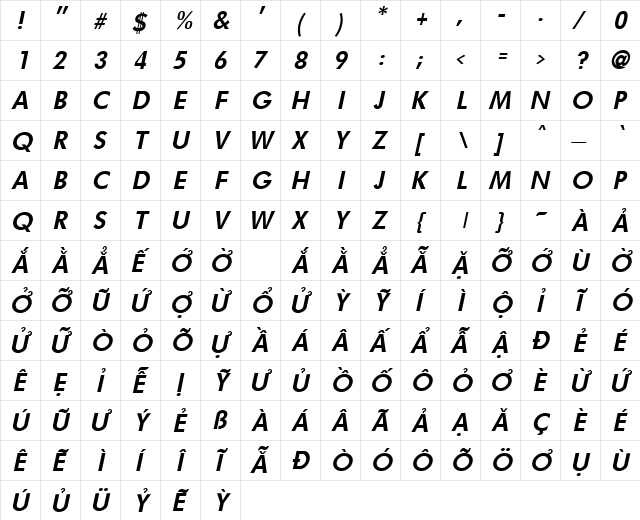
VPS Ha Noi Medium Hoa Bold Italic
Design Context for VPS Ha Noi Medium Hoa Typeface
VPS Ha Noi Medium Hoa is a composed and adaptable typeface that performs quietly and consistently across a wide range of design contexts. Its italic angle brings a sense of urgency and motion to the letterforms. The heavy weight commands attention and anchors typographic hierarchies.
Pro Tip: Try VPS Ha Noi Medium Hoa for annotation and caption copy alongside an upright companion — the contrast in angle creates a dynamic but ordered typographic system.